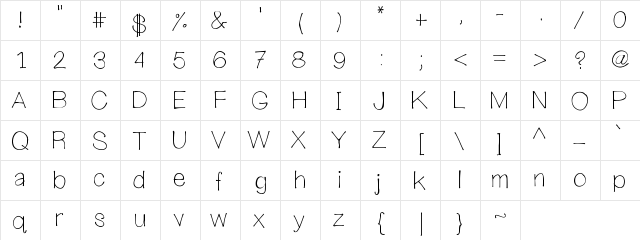
mywanderingheart Medium
Design Context for mywanderingheart
mywanderingheart is a composed and adaptable typeface that performs quietly and consistently across a wide range of design contexts.
Pro Tip: Use mywanderingheart in both headline and body roles to test its range before committing to a single application.